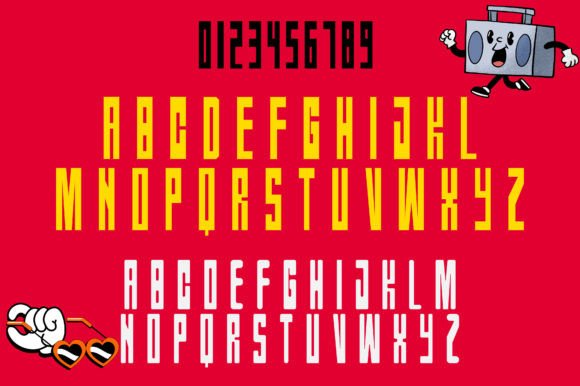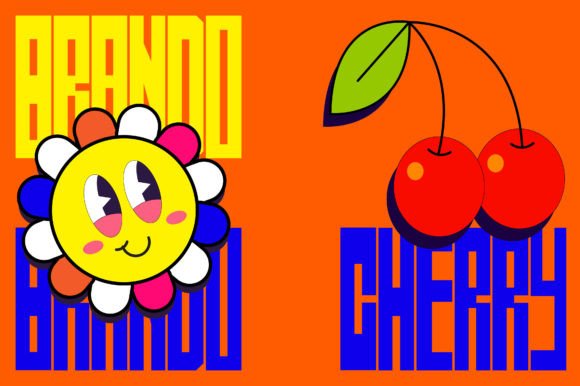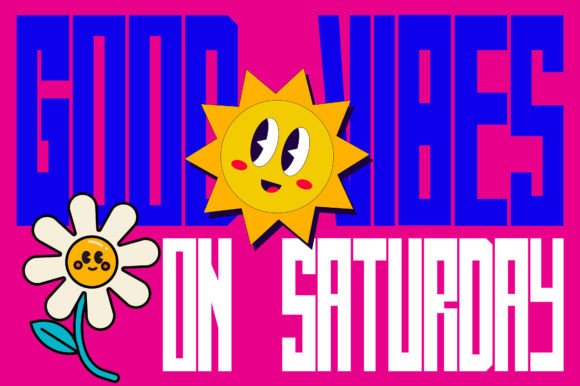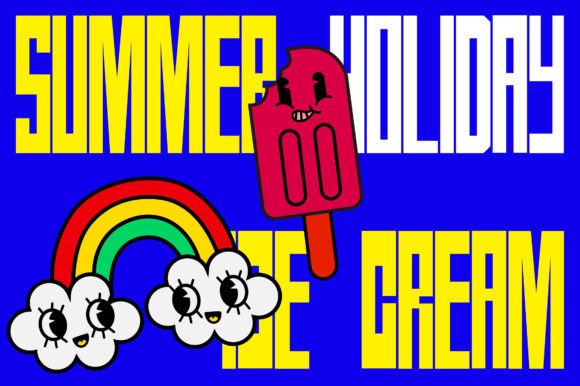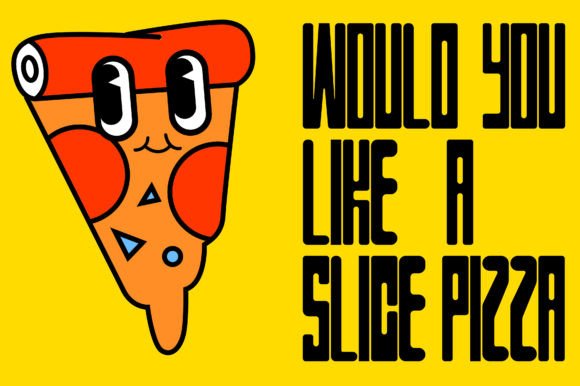
Brando Font: The Ultimate Choice for Bold and Powerful Designs
Are you a designer or crafter looking for a font that can make your text stand out? Look no further than Brando Font. This strong, tall, and bold font is perfect for titles or headings, grabbing attention and ensuring easy readability. Its thick letters give a powerful look to any design, making it an ideal choice for a wide range of creative projects.
What Makes Brando Font So Special?
Brando Font is a unique and versatile font that offers a range of benefits for designers and crafters. Here are just a few of the key features that make it so special:
- Bold and Powerful: Brando Font is characterized by its thick, bold letters that give a powerful look to any design. This makes it perfect for titles, headings, and other applications where you want to grab attention.
- Easy to Read: Despite its boldness, Brando Font is surprisingly easy to read. This makes it a great choice for designs where you need to communicate a message quickly and clearly.
- Versatile: Brando Font is a highly versatile font that can be used in a wide range of creative projects, from posters and flyers to logos and branding materials.
- Professional Look: The clean lines and bold letters of Brando Font give it a professional look that’s perfect for businesses, organizations, and individuals who want to make a strong impression.
How to Use Brando Font in Your Designs
Brando Font is easy to use in a variety of design applications. Here are a few tips for incorporating it into your creative projects:
- Use it for Titles and Headings: Brando Font is perfect for titles and headings, where its bold letters can grab attention and draw the eye.
- Combine it with Other Fonts: Brando Font can be paired with a range of other fonts to create a unique and visually appealing design.
- Experiment with Colors and Textures: Brando Font looks great in a range of colors and textures, so don’t be afraid to experiment and find the combination that works best for your design.
The Benefits of Using Brando Font
There are many benefits to using Brando Font in your designs. Here are just a few of the key advantages:
- Attention-Grabbing: Brando Font is designed to grab attention and draw the eye. This makes it perfect for designs where you want to make a strong impression.
- Easy to Read: Brando Font is surprisingly easy to read, making it a great choice for designs where you need to communicate a message quickly and clearly.
- Professional Look: The clean lines and bold letters of Brando Font give it a professional look that’s perfect for businesses, organizations, and individuals who want to make a strong impression.
- Versatile: Brando Font can be used in a wide range of creative projects, from posters and flyers to logos and branding materials.
Brando Font in the World of Design
Brando Font is a popular choice among designers and crafters, and it’s easy to see why. Its bold, powerful letters make it perfect for a wide range of creative projects, from posters and flyers to logos and branding materials.
In the world of design, Brando Font is often used for:
- Posters and Flyers: Brando Font is perfect for posters and flyers, where its bold letters can grab attention and draw the eye.
- Logos and Branding: Brando Font is a popular choice for logos and branding materials, where its professional look and feel can help to establish a strong brand identity.
- Advertising and Marketing: Brando Font is often used in advertising and marketing materials, where its attention-grabbing letters can help to grab attention and drive results.
In conclusion, Brando Font is a powerful and versatile font that’s perfect for designers and crafters who want to make a strong impression. Its bold, thick letters give a professional look to any design, while its easy readability makes it perfect for a wide range of creative projects. Whether you’re creating posters, logos, or branding materials, Brando Font is a great choice.